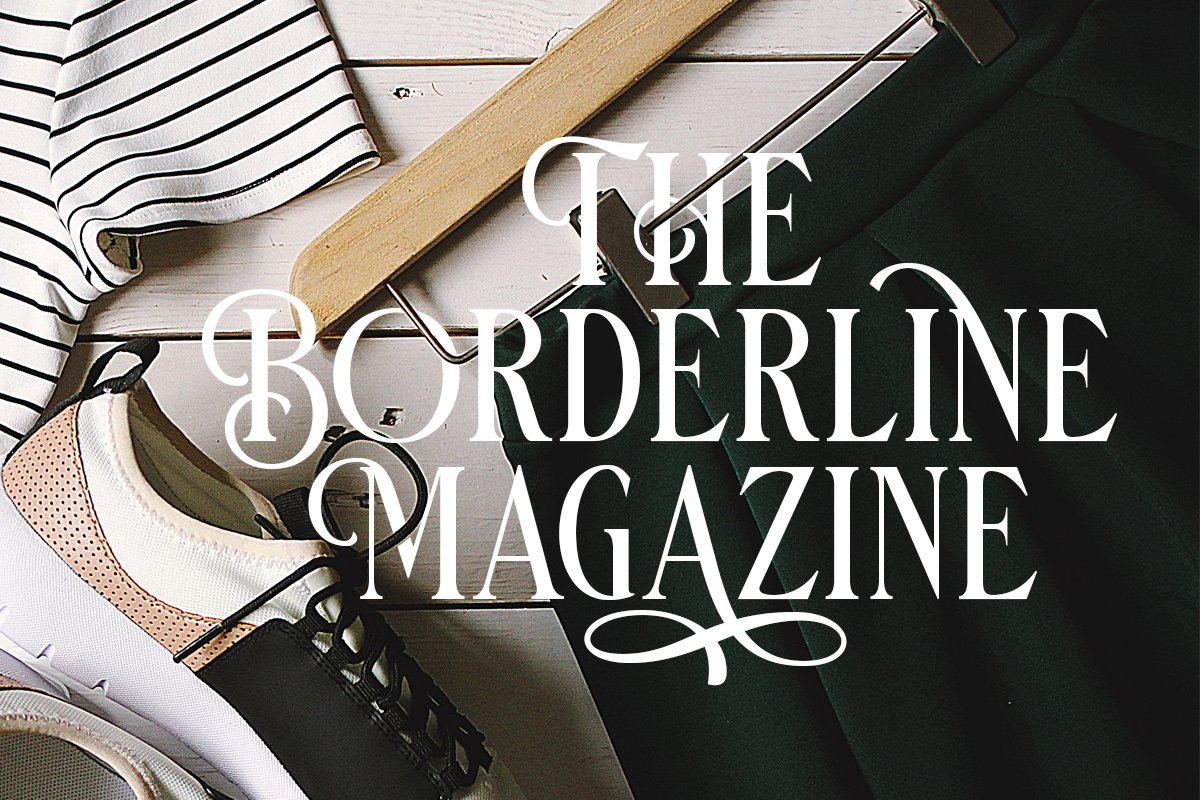
About the Danielle Harris Editorial Font
Introducing, Danielle Harris, A typeface with modern yet classy feel! They works perfect for you who needs a typeface for headline, logotype, apparel, invitation, branding, packaging, advertising etc, This typeface is comes in uppercase, lowercase, punctuation, symbols, numerals, stylistic set alternate, ligatures, etc also support multilingual, We hope you enjoy the font, please feel free to comment if you have any thoughts or feedback